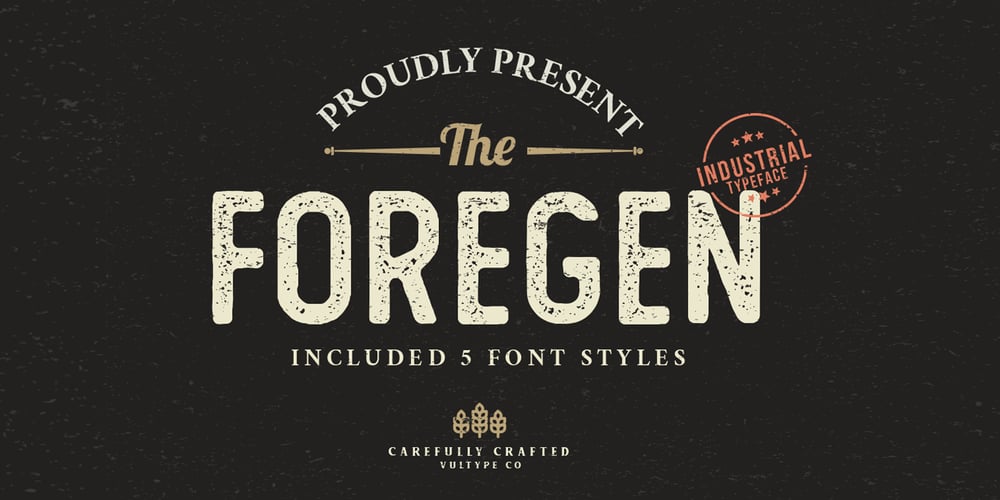
The Foregen Font Family was designed by Candra Hamdani and published by Vultype Co. The Foregen contains 5 styles and family package options. Introducing The Foregen Vintage FontThe Foregen is vintage sans serif font with 6 font styles including Regular, Outline, Vintage, Stamp one, And Stamp two. This font has a vintage feel with styles stamp on each letter. great for Logotype, Branding Design, Vintage Logo Design